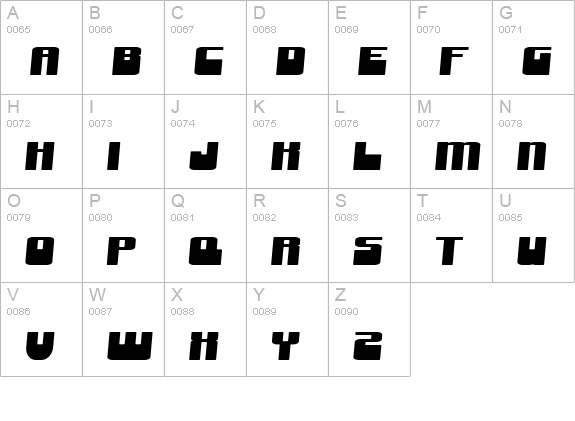
SF Groove Machine Extended Font Details
SF Groove Machine Extended is a distinctive, extended-width variant in the SF typeface family \xE2\x80\x94 well suited to design and typography projects.
SF Groove Machine Extended is a captivating and versatile font that effortlessly combines futuristic elements with a touch of sleek sophistication. This font exudes a sense of dynamic energy, making it perfect for projects that require a modern and edgy aesthetic. With its extended characters and bold, geometric shapes, SF Groove Machine Extended commands attention and leaves a lasting impression. Whether you are designing posters, album covers, or digital artwork, this font will add a unique and eye-catching element to your creations. One of the most exciting aspects of SF Groove Machine Extended is that it is available for free download at FontsMarket.com. This means that you can add this incredible font to your collection without breaking the bank. Embrace the freedom to explore your creative boundaries and let SF Groove Machine Extended elevate your designs to new heights. Don't miss out on the opportunity to enhance your projects with this visually stunning font. Download SF Groove Machine Extended today from FontsMarket.com and experience the power of this captivating typeface.